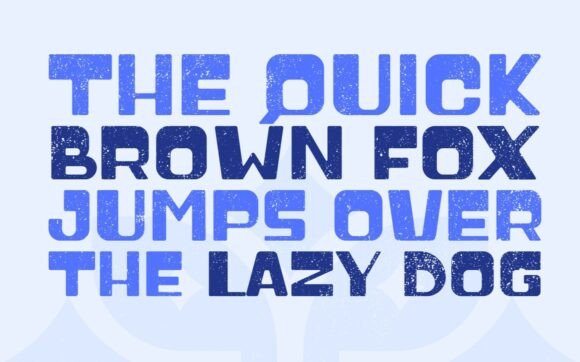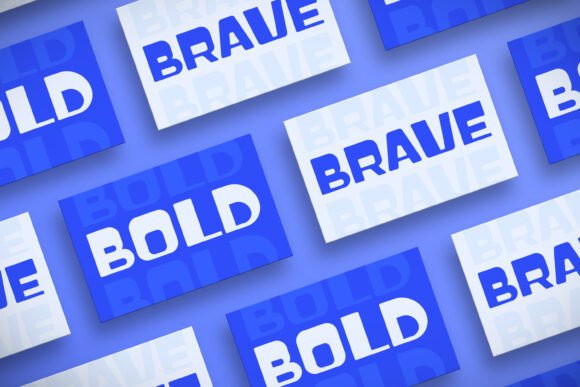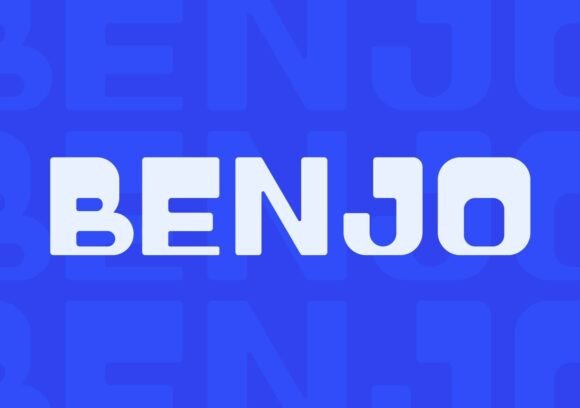
Introducing Benjo Font: The Ultimate Bold and Modern Display Font
In the world of typography, a font can make all the difference in capturing the essence of a brand or design. If you’re looking for a typeface that exudes confidence, energy, and style, look no further than Benjo Font. This bold, modern display font is specifically designed to command attention and make a lasting impression. With its strong lines and dynamic aesthetic, Benjo is perfect for striking headlines, eye-catching logos, and powerful branding.
The Power of Benjo Font
Benjo Font is more than just a typeface – it’s a statement piece. Its bold and modern design makes it perfect for designers and crafters who want to add a touch of edginess to their work. Whether you’re creating futuristic designs or edgy streetwear aesthetics, Benjo delivers impact and style in every letter. This font is designed to stand out and make a statement, making it ideal for projects that require a confident and attention-grabbing look.
Key Features of Benjo Font
- Bold and Modern Design: Benjo Font boasts a bold and modern design that is sure to turn heads. Its strong lines and dynamic aesthetic make it perfect for striking headlines and eye-catching logos.
- Versatile: Benjo Font is versatile and can be used for a wide range of design projects, from futuristic designs to edgy streetwear aesthetics.
- Easy to Read: Despite its bold design, Benjo Font is easy to read, making it perfect for use in headlines, titles, and other display text.
- Highly Customizable: Benjo Font can be easily customized to fit your design needs, allowing you to experiment with different colors, sizes, and styles.
Use Cases for Benjo Font
Benjo Font is perfect for a wide range of design projects, including:
- Headlines and Titles: Use Benjo Font to create striking headlines and titles that grab attention and make a lasting impression.
- Logo Design: Benjo Font is perfect for creating eye-catching logos that exude confidence and energy.
- Branding: Use Benjo Font to create powerful branding that makes a statement and sets your brand apart from the competition.
- Streetwear and Fashion: Benjo Font is perfect for creating edgy streetwear and fashion designs that require a bold and modern aesthetic.
- Futuristic Designs: Use Benjo Font to create futuristic designs that require a dynamic and attention-grabbing look.
Tips for Using Benjo Font
Here are some tips for using Benjo Font effectively in your designs:
- Use it Sparingly: Benjo Font is a bold and attention-grabbing font, so use it sparingly to avoid overwhelming your design.
- Experiment with Colors and Sizes: Benjo Font can be easily customized, so experiment with different colors and sizes to find the perfect look for your design.
- Pair it with Other Fonts: Benjo Font can be paired with other fonts to create a unique and visually appealing design.
In conclusion, Benjo Font is a bold and modern display font that is perfect for designers and crafters who want to add a touch of edginess to their work. With its strong lines and dynamic aesthetic, Benjo delivers impact and style in every letter. Whether you’re creating futuristic designs or edgy streetwear aesthetics, Benjo Font is the perfect choice. So why settle for a ordinary font when you can make a statement with Benjo Font?